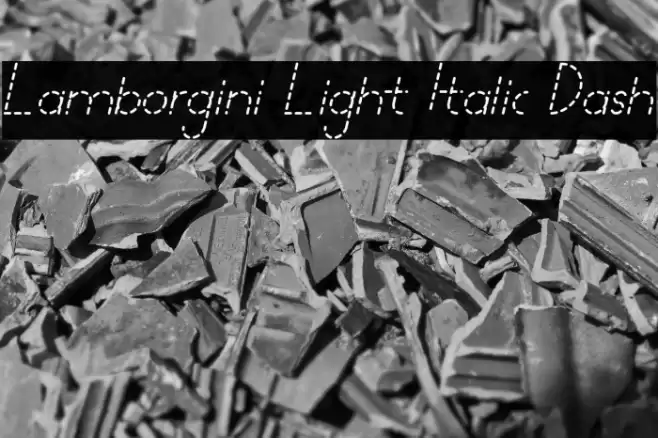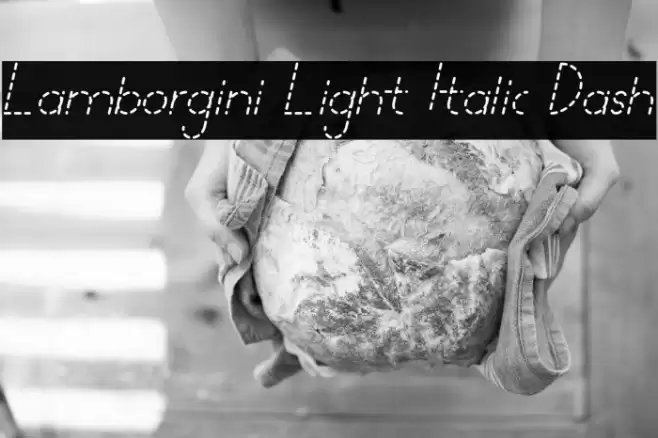
Lamborgini Light Italic Dash Font
Lamborgini Light Italic Dash Description
This font features a unique dashed line style, giving it a modern and dynamic appearance. The letters are italicized, adding a sense of motion and elegance. The strokes are consistent in width, creating a uniform look across all characters. The uppercase and lowercase letters maintain a cohesive design, with rounded edges and smooth curves. The numbers follow the same pattern, ensuring readability and style. This font's distinct dashed effect makes it stand out, suitable for creative and contemporary projects.
A modern, italicized font with a unique dashed line style from Regular fonts.
- Proposed Projects: Ideal for creative branding, fashion magazines, modern art posters, and digital media projects.